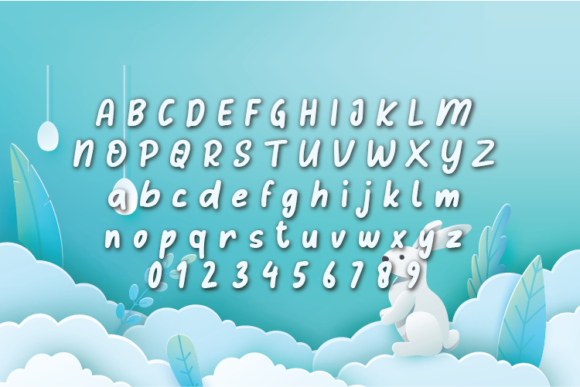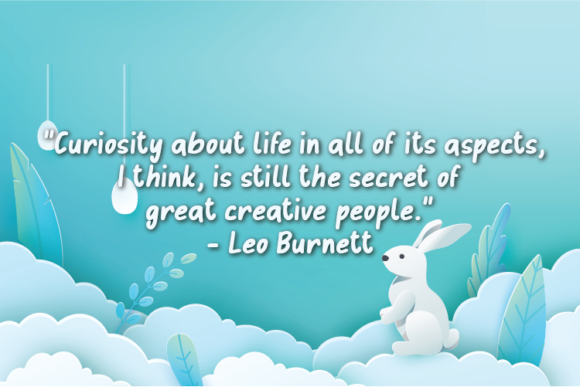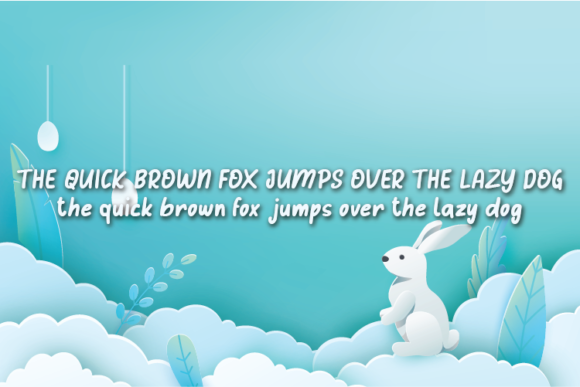
Easter Party Font: The Perfect Addition to Your Design Collection
Are you looking for a font that can add a touch of warmth and friendliness to your designs? Look no further than the Easter Party font! This natural and friendly display font is perfect for creating unique and eye-catching designs that will leave a lasting impression.
What Makes Easter Party Font So Special?
Easter Party font is a one-of-a-kind display font that boasts a distinctive and charming style. Its natural and friendly aesthetic makes it perfect for a wide range of design projects, from quotes and notes to tees and product designs. The font’s unique character set and hand-crafted design elements give it a personal touch that will make your designs stand out from the crowd.
Key Features of Easter Party Font
- Natural and Friendly Design: The Easter Party font has a warm and inviting design that is perfect for creating designs that are both fun and sophisticated.
- Unique Character Set: The font features a unique character set that includes a range of letters, numbers, and punctuation marks, making it perfect for creating quotes, notes, and other text-based designs.
- Hand-Crafted Design Elements: The Easter Party font features hand-crafted design elements that give it a personal touch and make it perfect for creating one-of-a-kind designs.
- Perfect for Quotes and Notes: The font’s clear and easy-to-read design makes it perfect for creating quotes and notes that are both visually appealing and easy to understand.
- Ideal for Tees and Product Designs: The Easter Party font is also perfect for creating designs for tees and other products, such as mugs, tote bags, and more.
Why Designers and Crafters Love Easter Party Font
Designers and crafters love the Easter Party font for its versatility and ease of use. The font is perfect for creating a wide range of designs, from simple quotes and notes to more complex product designs. The font’s natural and friendly aesthetic also makes it perfect for creating designs that are both fun and sophisticated.
Tips for Using Easter Party Font in Your Designs
- Experiment with Different Sizes and Colors: The Easter Party font looks great in a variety of sizes and colors, so don’t be afraid to experiment and find the perfect combination for your design.
- Pair with Other Fonts: The Easter Party font pairs well with other fonts, so try combining it with other fonts to create a unique and eye-catching design.
- Use for Quotes and Notes: The font’s clear and easy-to-read design makes it perfect for creating quotes and notes that are both visually appealing and easy to understand.
- Try it on Different Products: The Easter Party font is perfect for creating designs for a wide range of products, from tees and mugs to tote bags and more.
The Easter Party font is a natural and friendly display font that is perfect for creating unique and eye-catching designs. With its unique character set, hand-crafted design elements, and versatile design, it’s perfect for a wide range of design projects. Whether you’re a designer or crafter, the Easter Party font is a great addition to your design collection.
Get Ready to Hop into Spring with Easter Party Font!